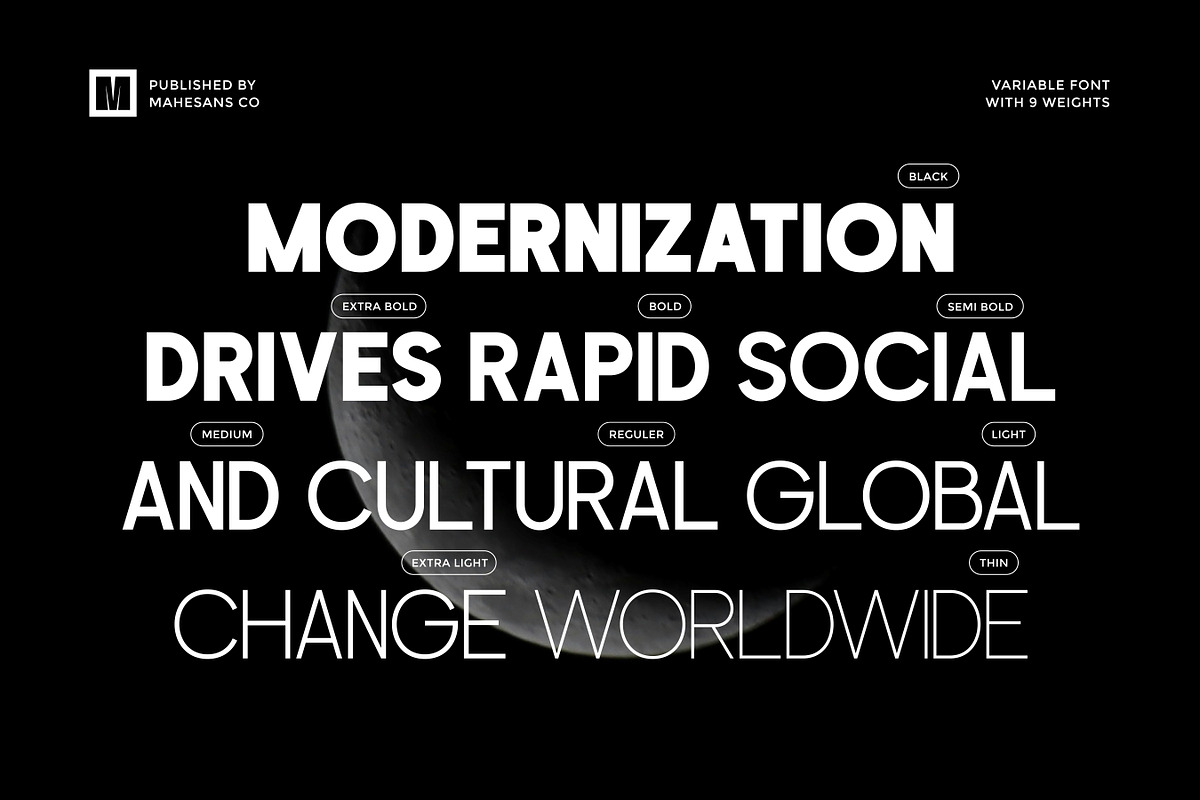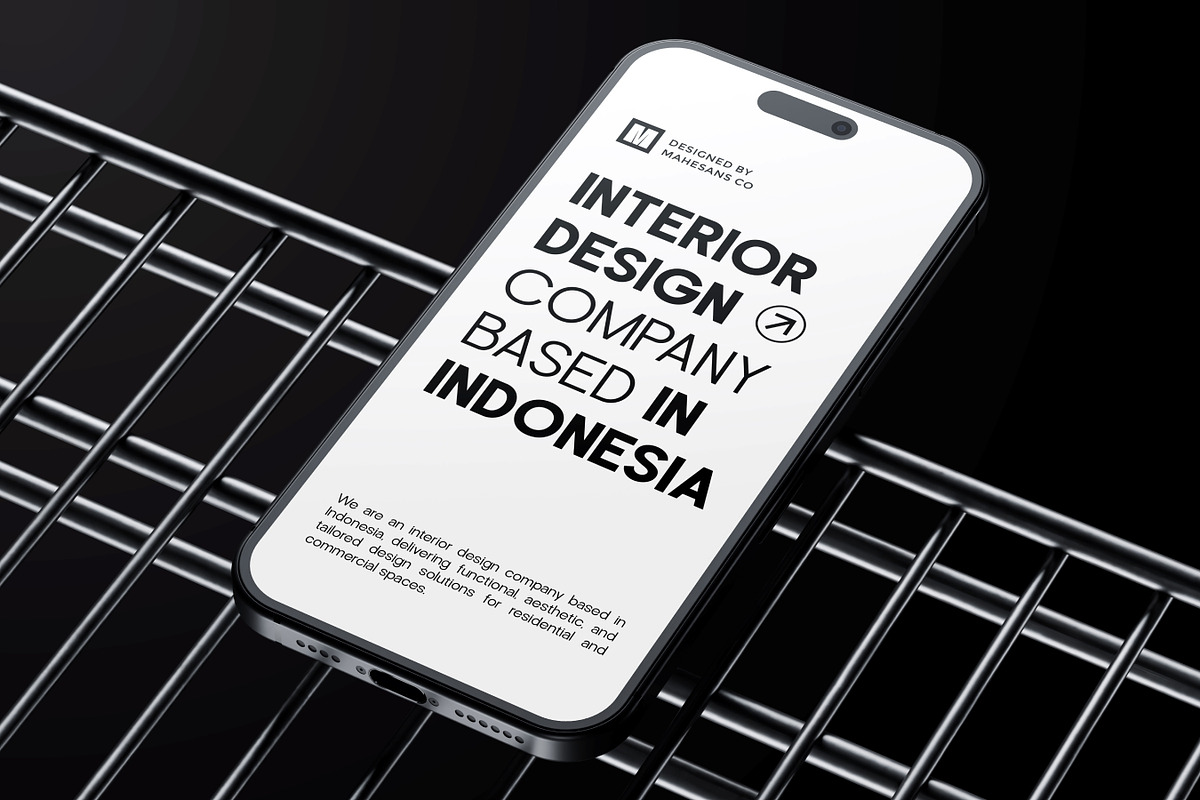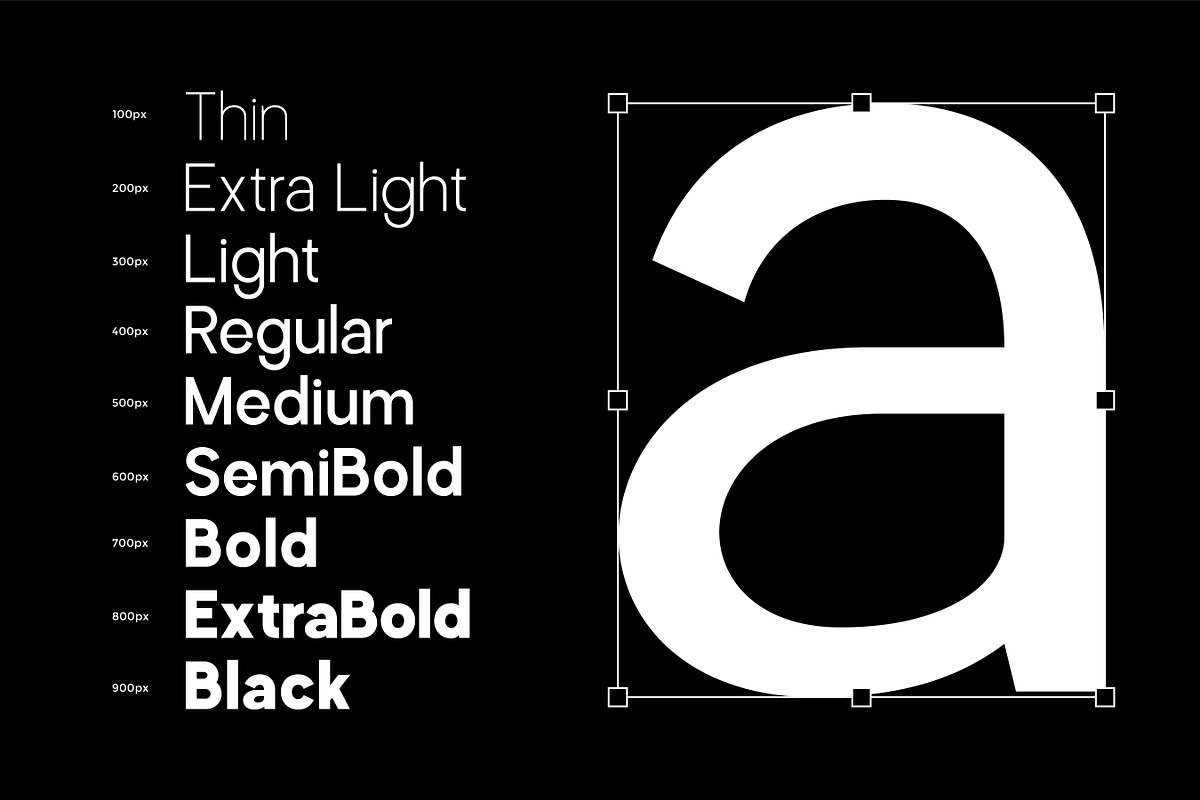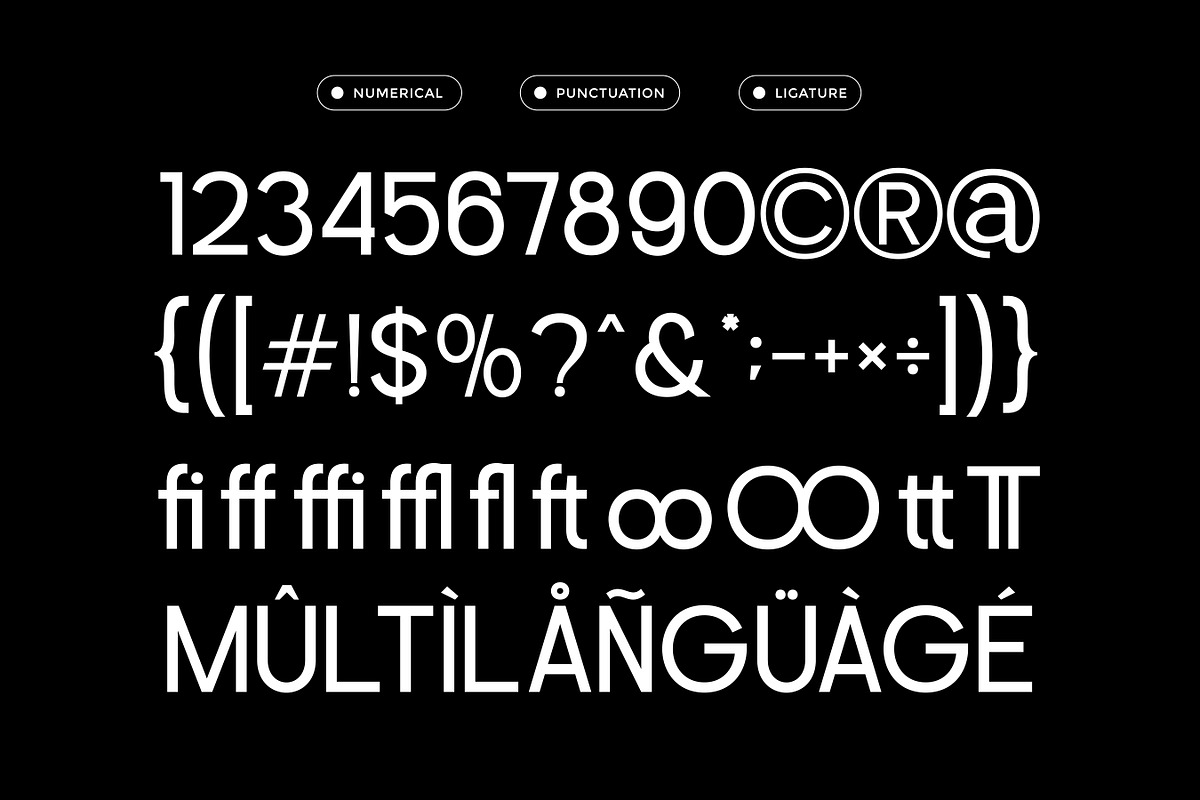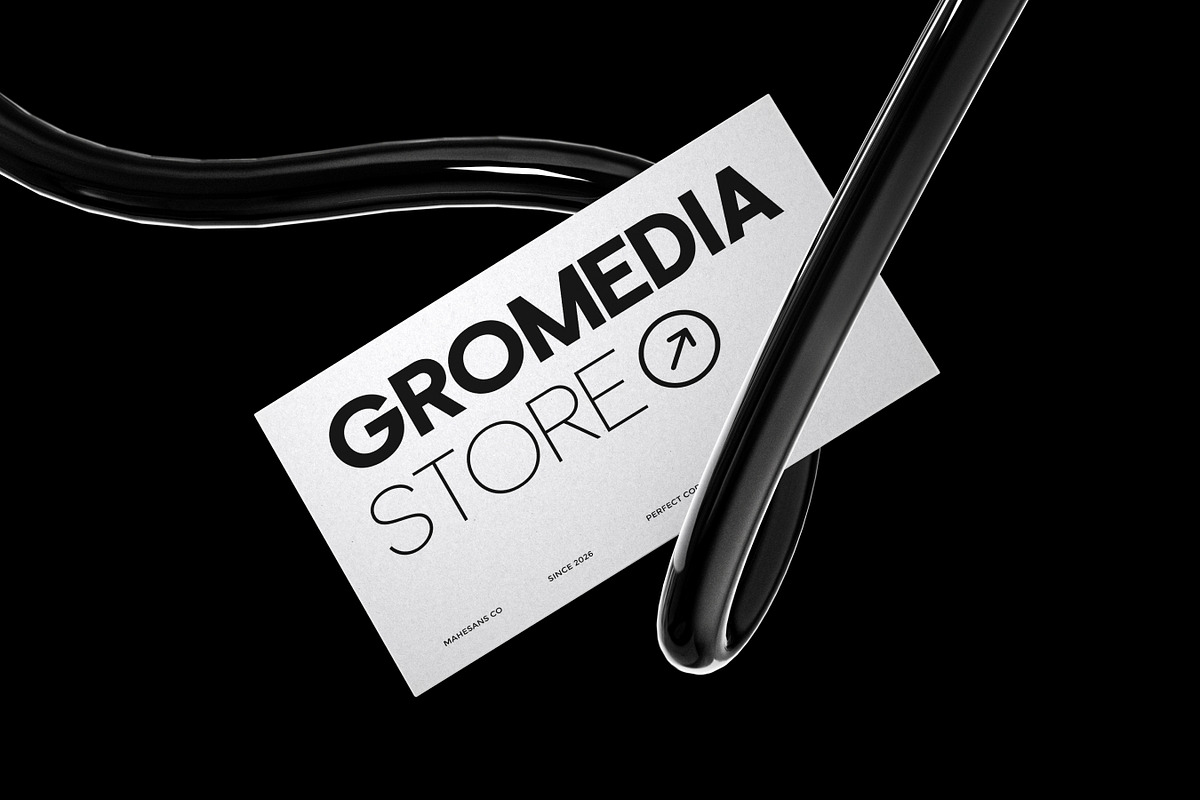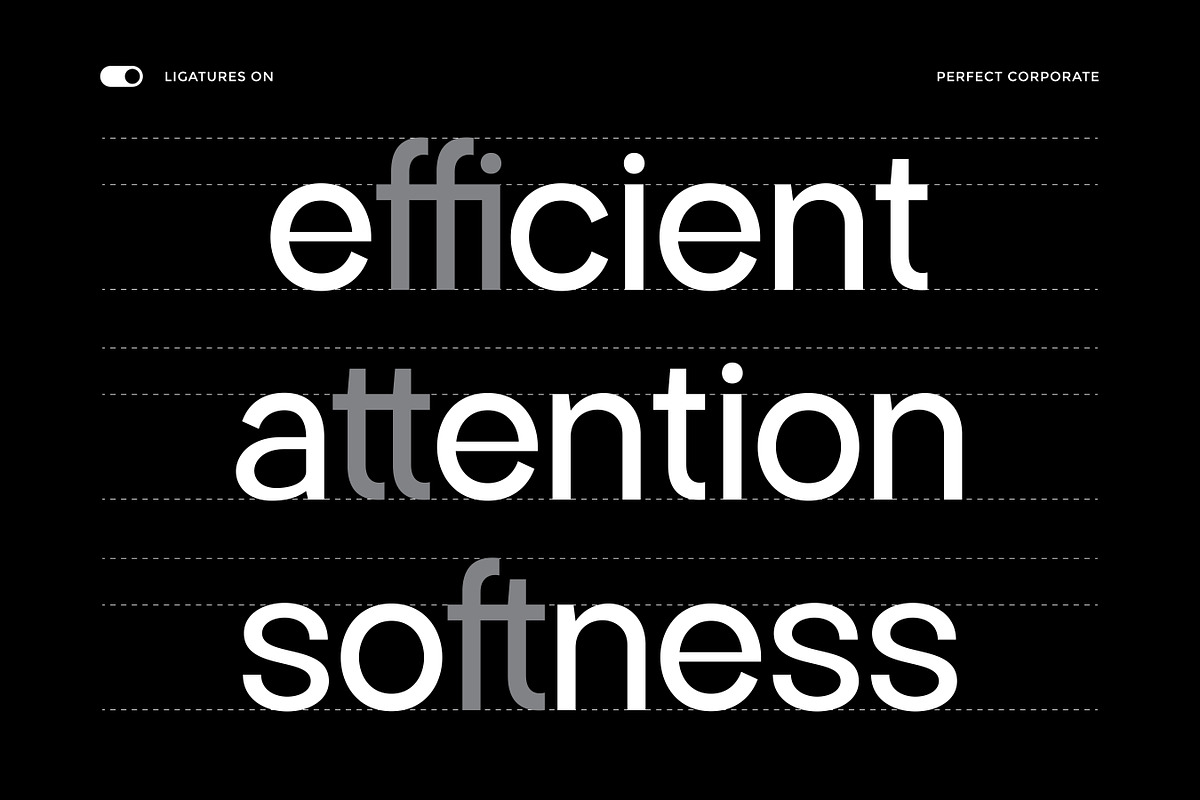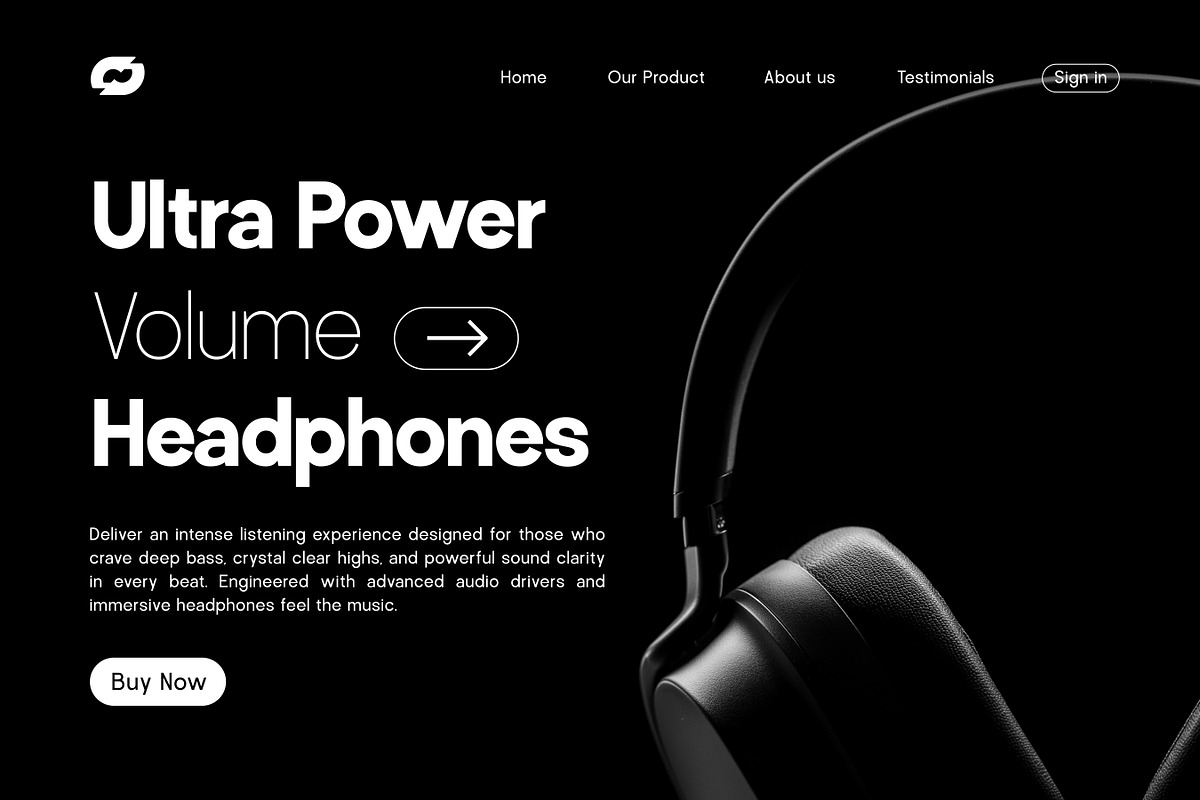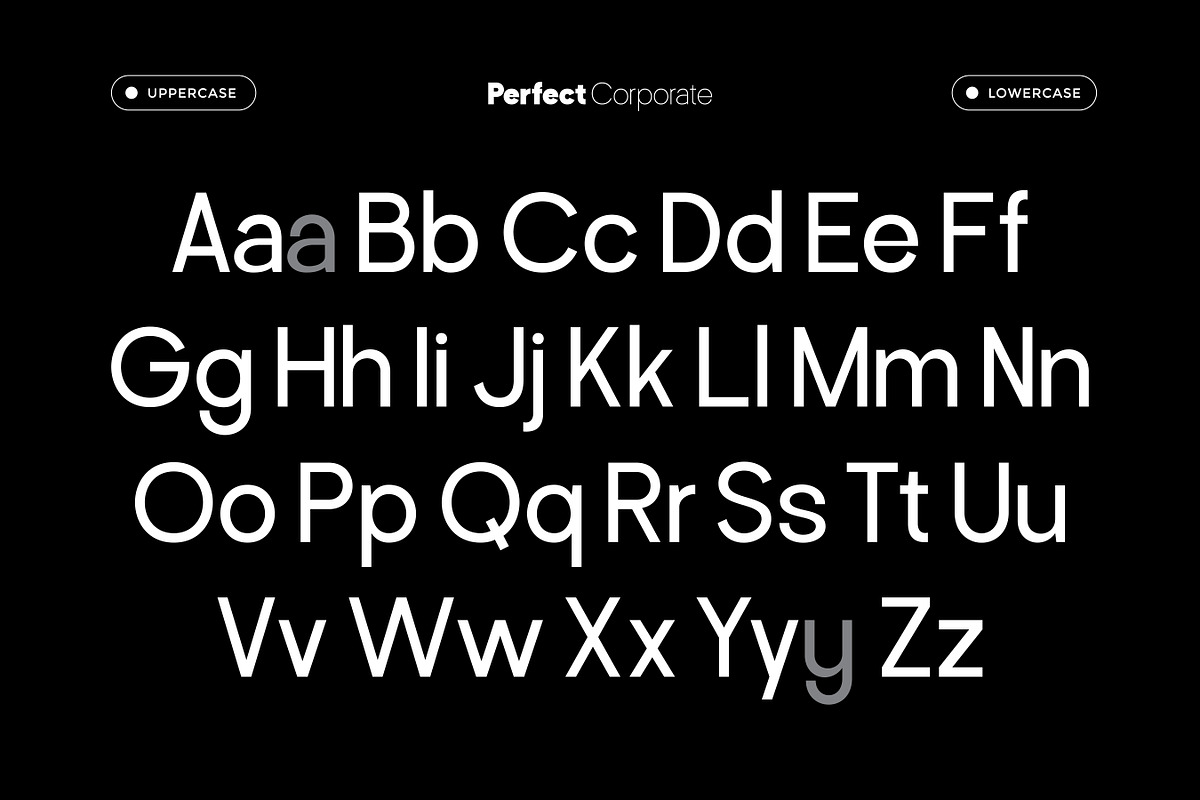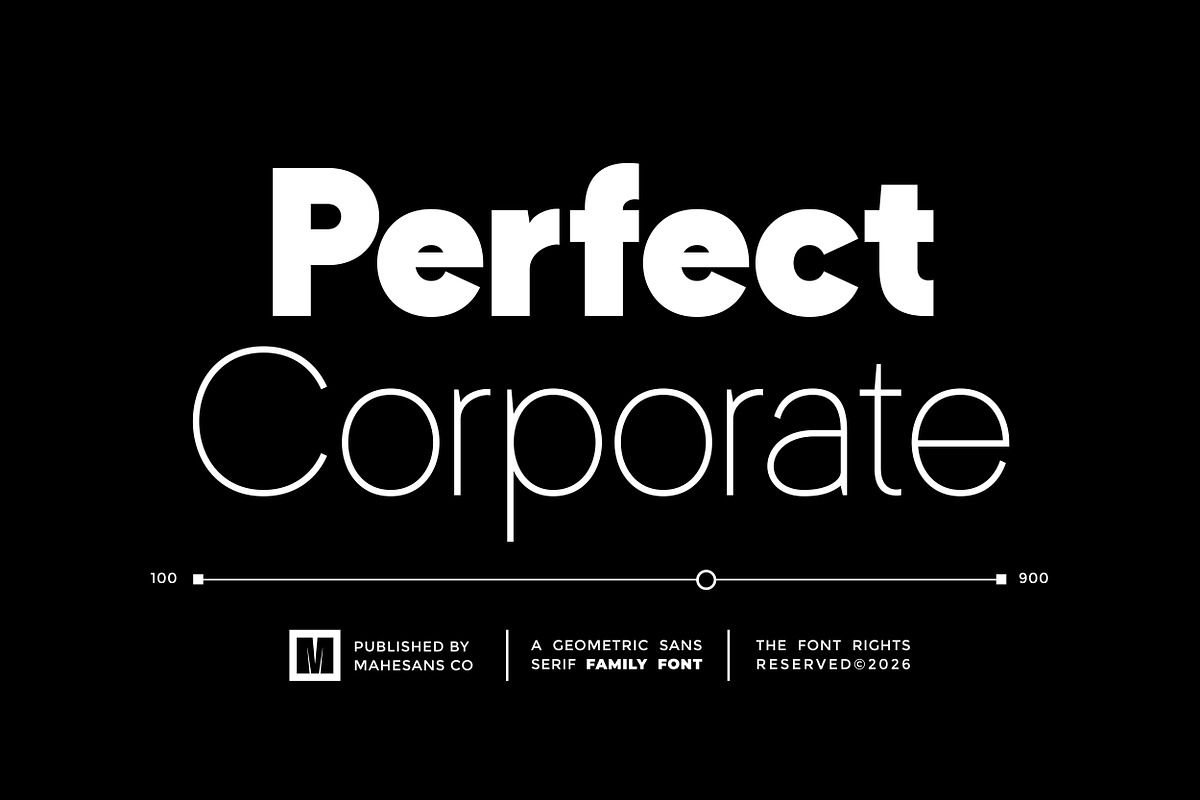
Perfect Corporate Sans Serif Family
Perfect Corporate is a modern geometric sans serif typeface designed to deliver clarity, consistency, and professional impact across a wide range of design applications. Crafted for today’s corporate landscape, this versatile font family blends clean structure with subtle visual softness, making it ideal for branding, editorial layouts, web interfaces, presentations, and business communications.
With a full range of 9 carefully balanced weights from Thin to Black, Perfect Corporate gives you complete typographic control for everything from bold headlines to refined body text. Its contemporary proportions and smooth curves ensure excellent legibility while maintaining a strong, confident presence in both digital and print environments.
Engineered for flexibility, this typeface works seamlessly across logos, corporate identities, UI/UX design, marketing materials, packaging, and more. Whether you're building a startup brand system or refreshing an established company’s visual voice, Perfect Corporate provides the precision and adaptability needed for modern design demands.
- Multilanguage